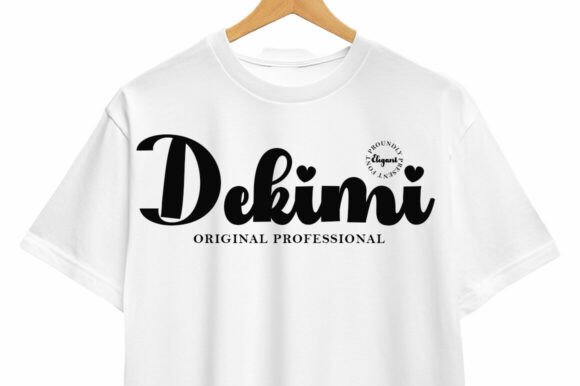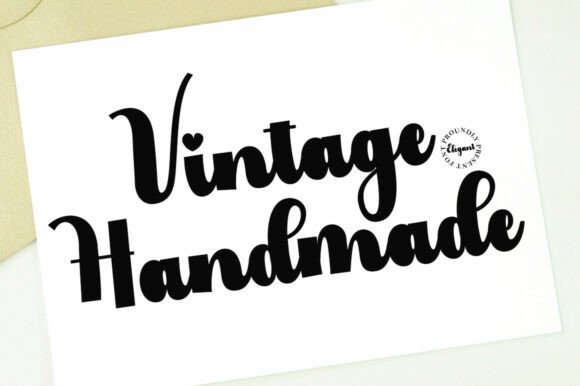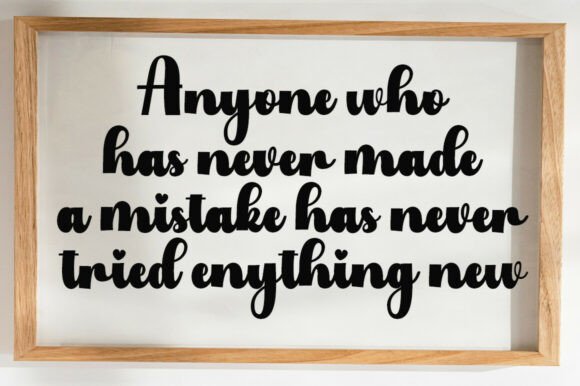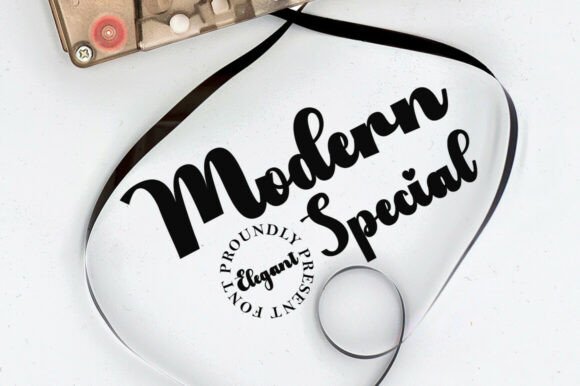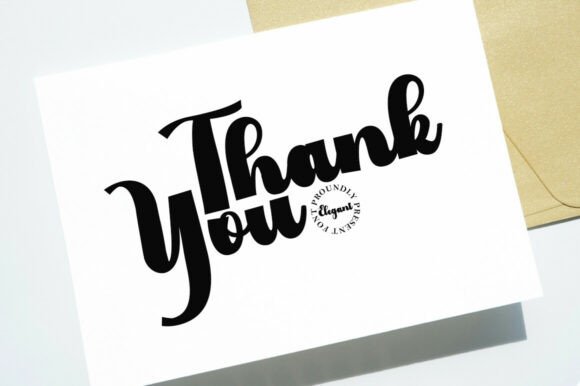
The Elegance of Typography: A Deep Dive into the Elegant Font
I’ll never forget the time I was working on a luxury brand project, tasked with creating a logo that exuded high-end sophistication. As I scrolled through font options, I felt like I was stuck in a sea of sameness – until I stumbled upon the Elegant font. Its bold, sweeping strokes and refined connections immediately caught my eye, and I knew I had found the perfect fit. In this article, we’ll explore the world of Elegant, a high-impact, sophisticated handwritten font that’s sure to elevate your creative work.
An Honest Review of Elegant
- ✨ High-impact sophistication: Elegant’s bold strokes and refined connections make it perfect for luxury brand logos, upscale event stationery, and premium product labels.
- ✅ Unique “hand-inked” look: This font provides a distinctive, professional feel that’s both established and undeniably chic.
- 💫 Dramatic contrast: The contrast between Elegant’s thick stems and smooth connections gives it a powerful visual presence.
While Elegant is an exceptional font, there are a few things to keep in mind:
- ⚠️ Legibility at small sizes: As with many script fonts, Elegant can become difficult to read at very small sizes. It’s best used at larger sizes, such as headlines or titles.
- 🤔 Glyph limitations: While Elegant comes with a range of OpenType features, some users may find the glyph selection limited compared to other fonts.
The Designer Inspiration Behind Elegant
While the true story behind Elegant’s creation remains a mystery, it’s easy to imagine a designer inspired by the flowing scripts of luxury brands and high-end editorials. Perhaps they sought to create a font that captured the essence of a bespoke signature, one that exuded refinement and poise.
| What makes Elegant suitable for luxury brands? | Elegant’s bold strokes, refined connections, and sophisticated feel make it perfect for luxury brands looking to convey high-end quality and refinement. |
| Can I use Elegant for body text? | While Elegant is stunning as a headline or title font, it’s not ideal for body text due to its script nature and potential legibility issues at small sizes. |
| Does Elegant come with OpenType features? | Yes, Elegant supports OpenType features, including stylistic alternates and glyphs, allowing for added visual interest and customization. |
| Is Elegant suitable for digital use? | Absolutely! Elegant’s clear, refined lines make it suitable for both print and digital applications, from social media graphics to website headers. |